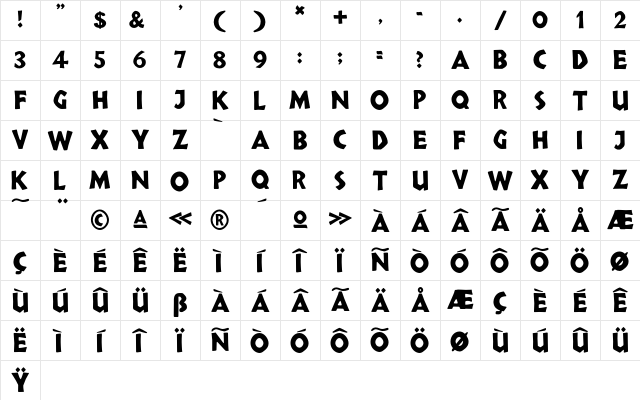
Complete Chieftan Solid glyph index. Displaying only characters natively supported by Chieftan Solid font.
Chieftan is a composed and adaptable typeface that performs quietly and consistently across a wide range of design contexts.